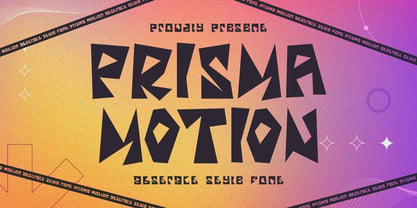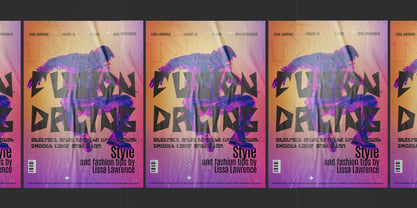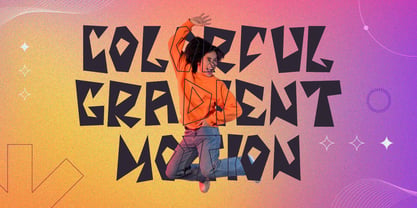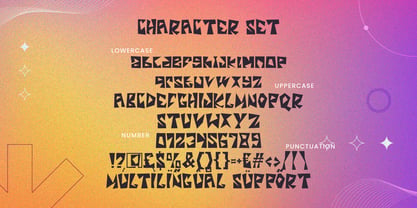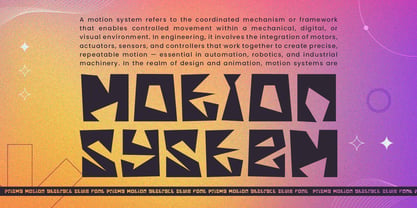
Prisma Motion
by Shanaf
The Prisma Motion Font Family was designed by Yesie Erma Yunita and published by Shanaf. Prisma Motion contains 1 styles. More about this family
Prisma Motion is a cutting-edge abstract font that redefines typographic expression through its bold, angular construction and geometric flair. Each character in this display typeface is uniquely stylized with jagged edges and asymmetrical forms, making it an ideal choice for designers seeking an unconventional aesthetic. The font’s edgy design evokes motion and energy, perfect for projects that demand a futuristic or experimental vibe. With strong vertical strokes, triangular cuts, and sharp angles, Prisma Motion commands attention in any visual hierarchy while maintaining legibility through calculated spacing and consistent weight distribution.
Designed to amplify visual impact, Prisma Motion excels in high-concept branding, poster titles, editorial layouts, album covers, and modern digital graphics. The font pairs especially well with colorful gradients and dynamic compositions, as demonstrated in its promotional assets. It includes uppercase and lowercase character sets, numbers, punctuation, and multilingual support—ensuring flexibility for international projects. Prisma Motion is not just a font, it’s a visual voice for bold creators aiming to challenge norms and craft daring narratives in both print and screen.
Designers: Yesie Erma Yunita
Current Foundry: Shanaf